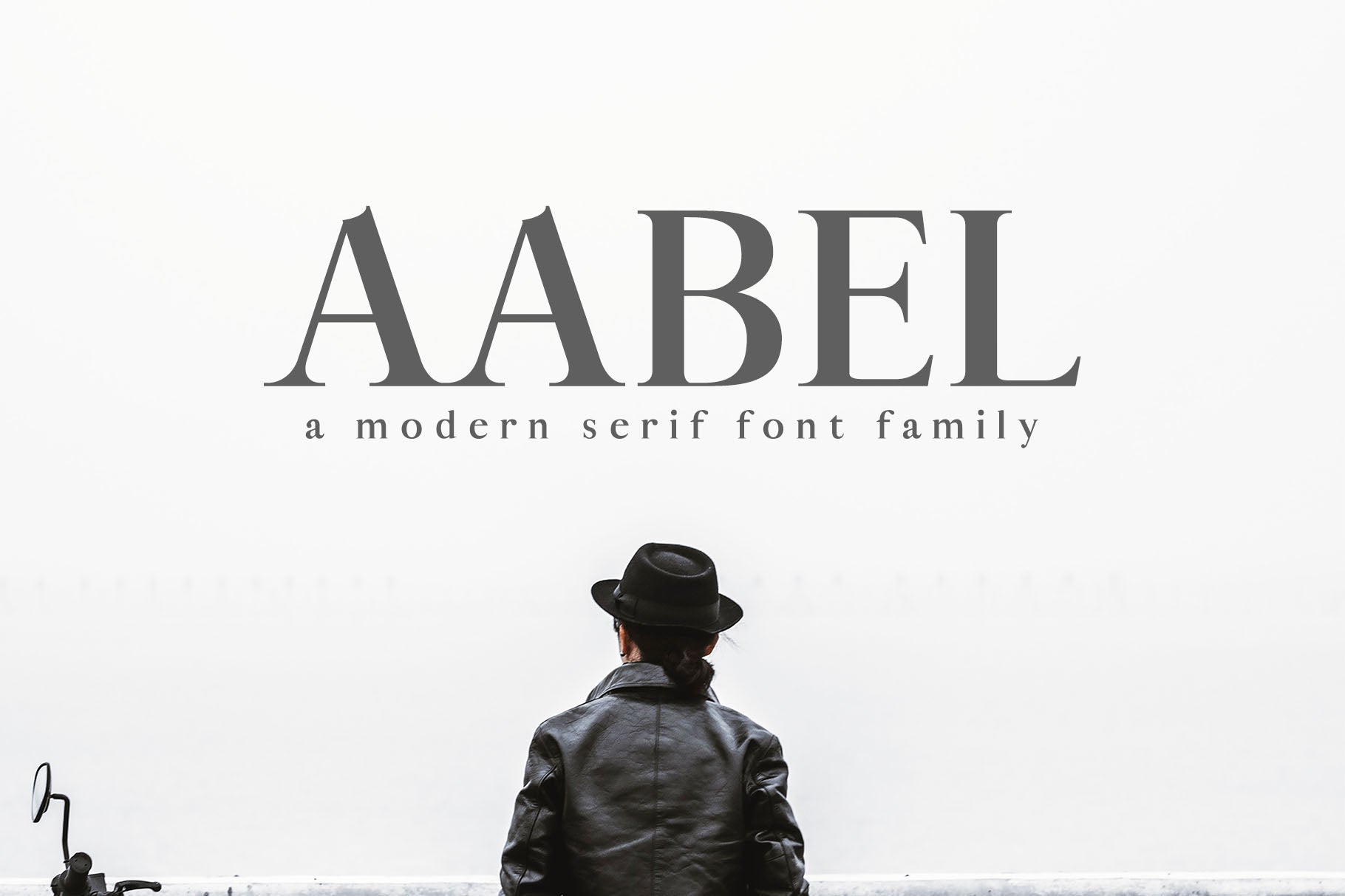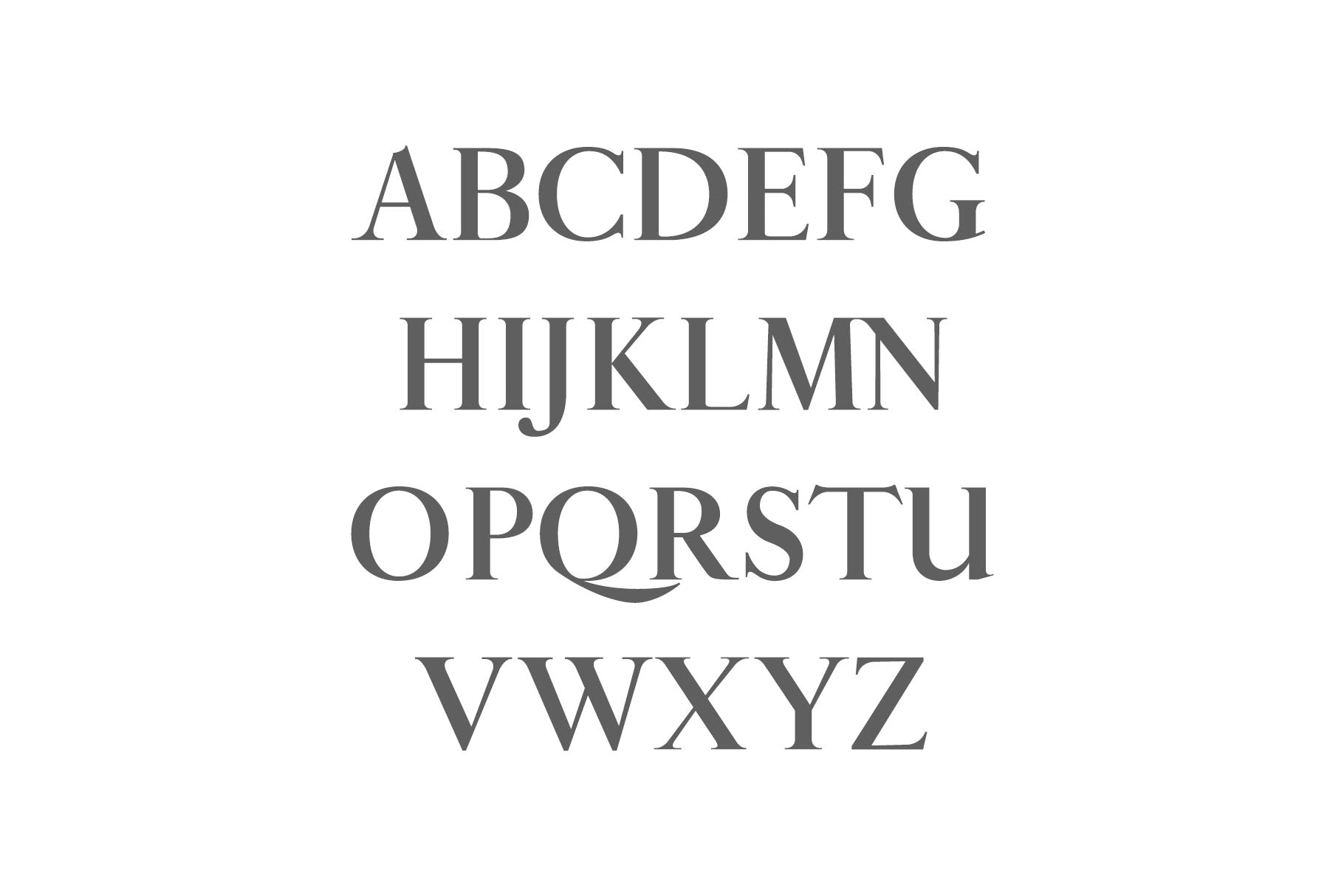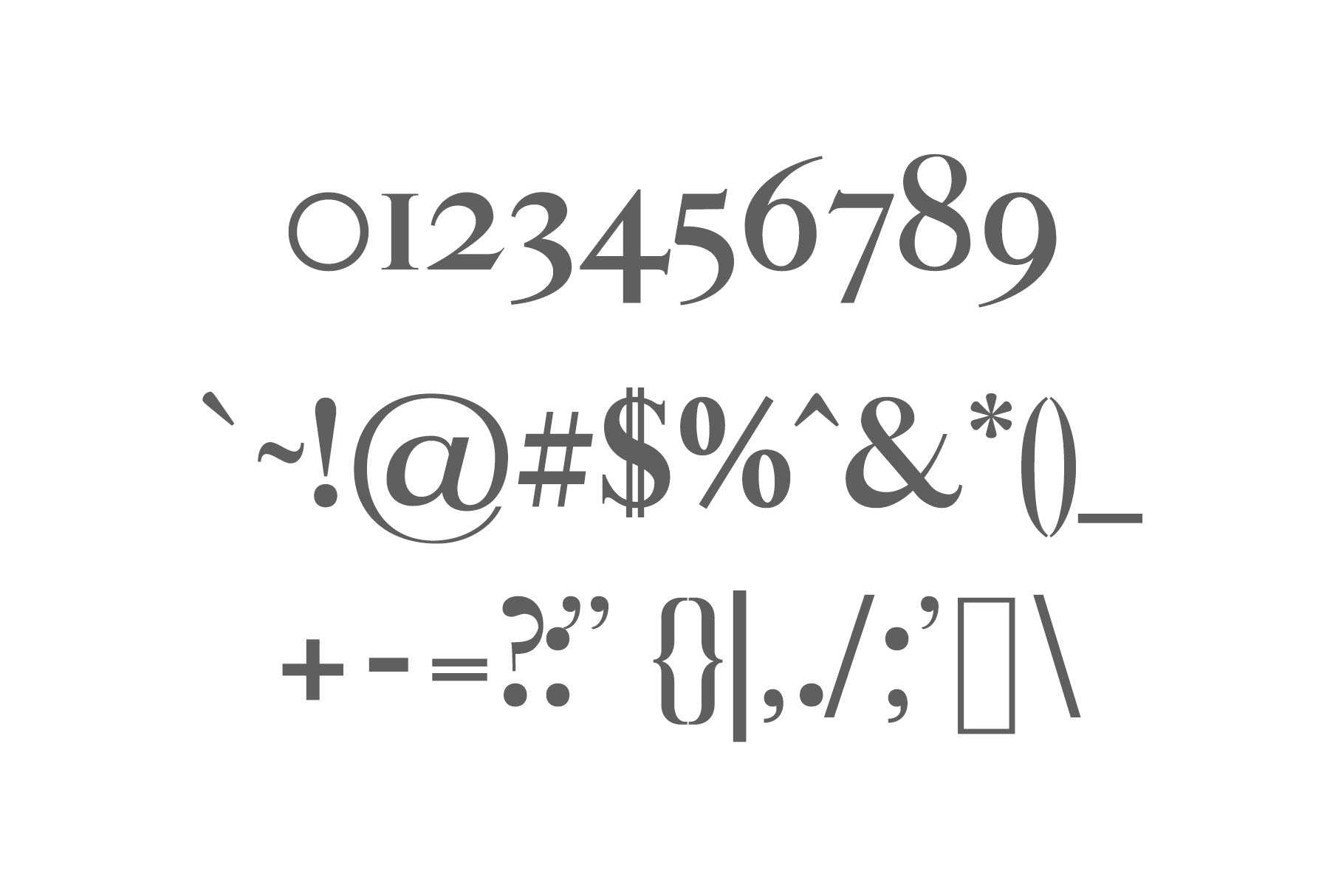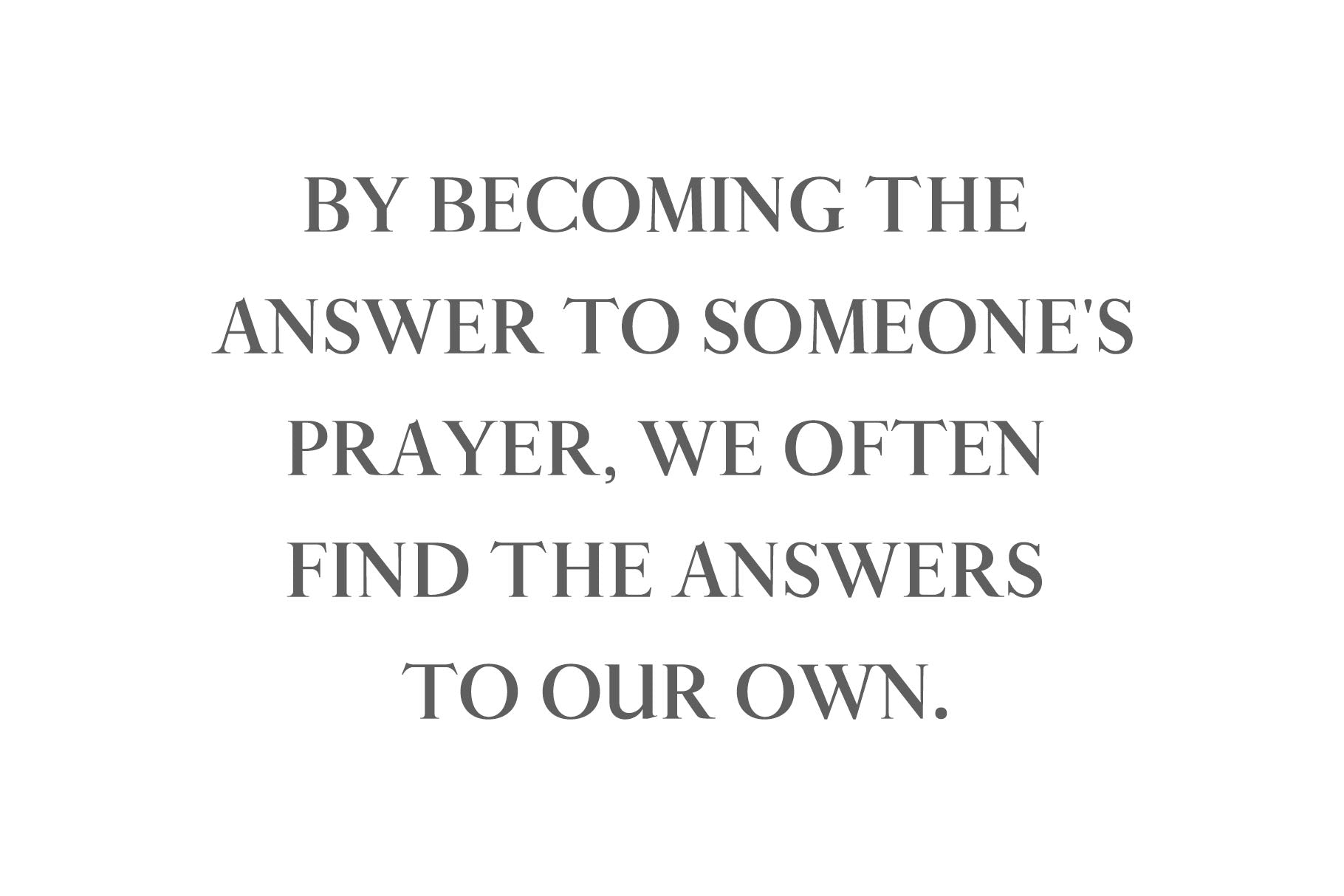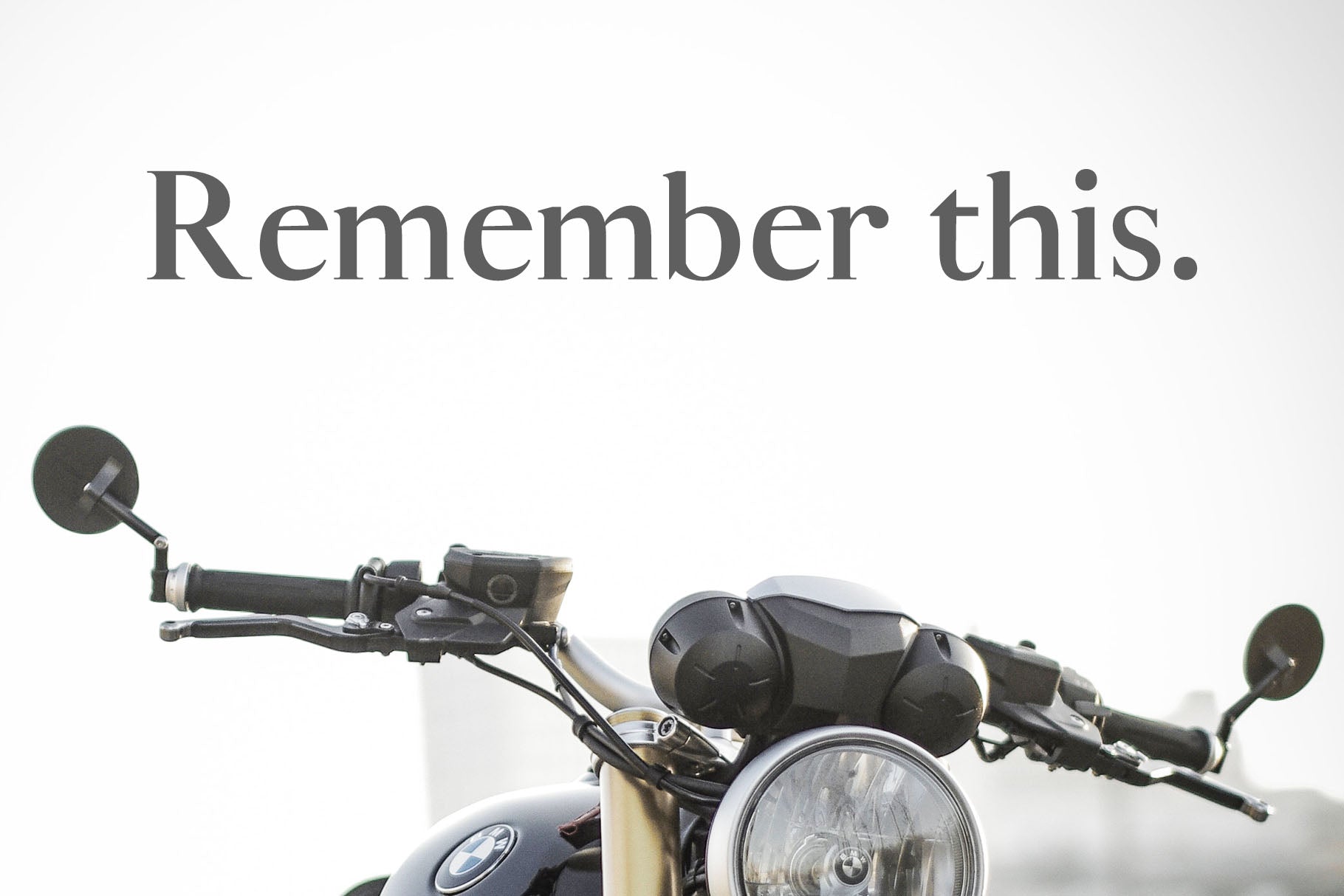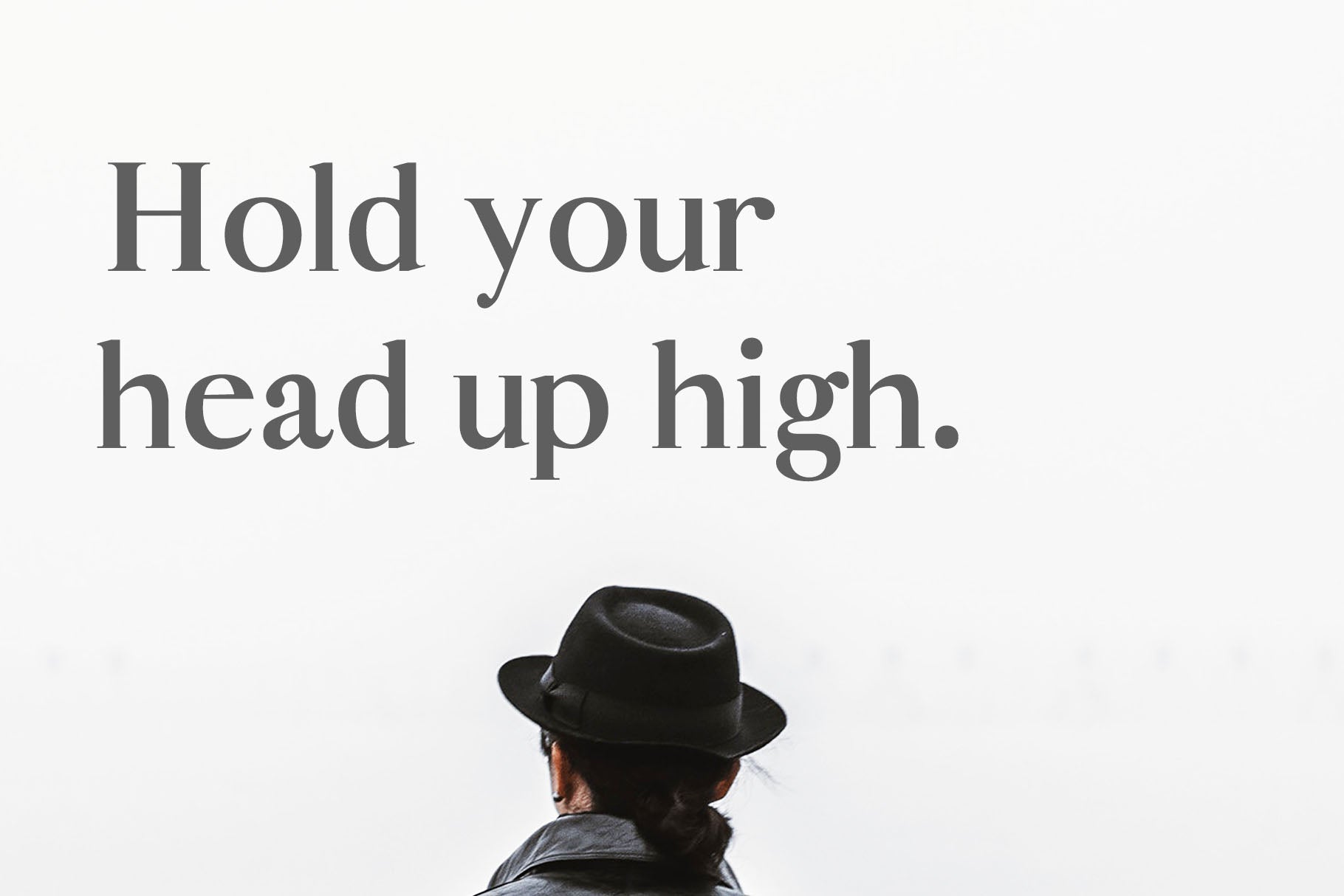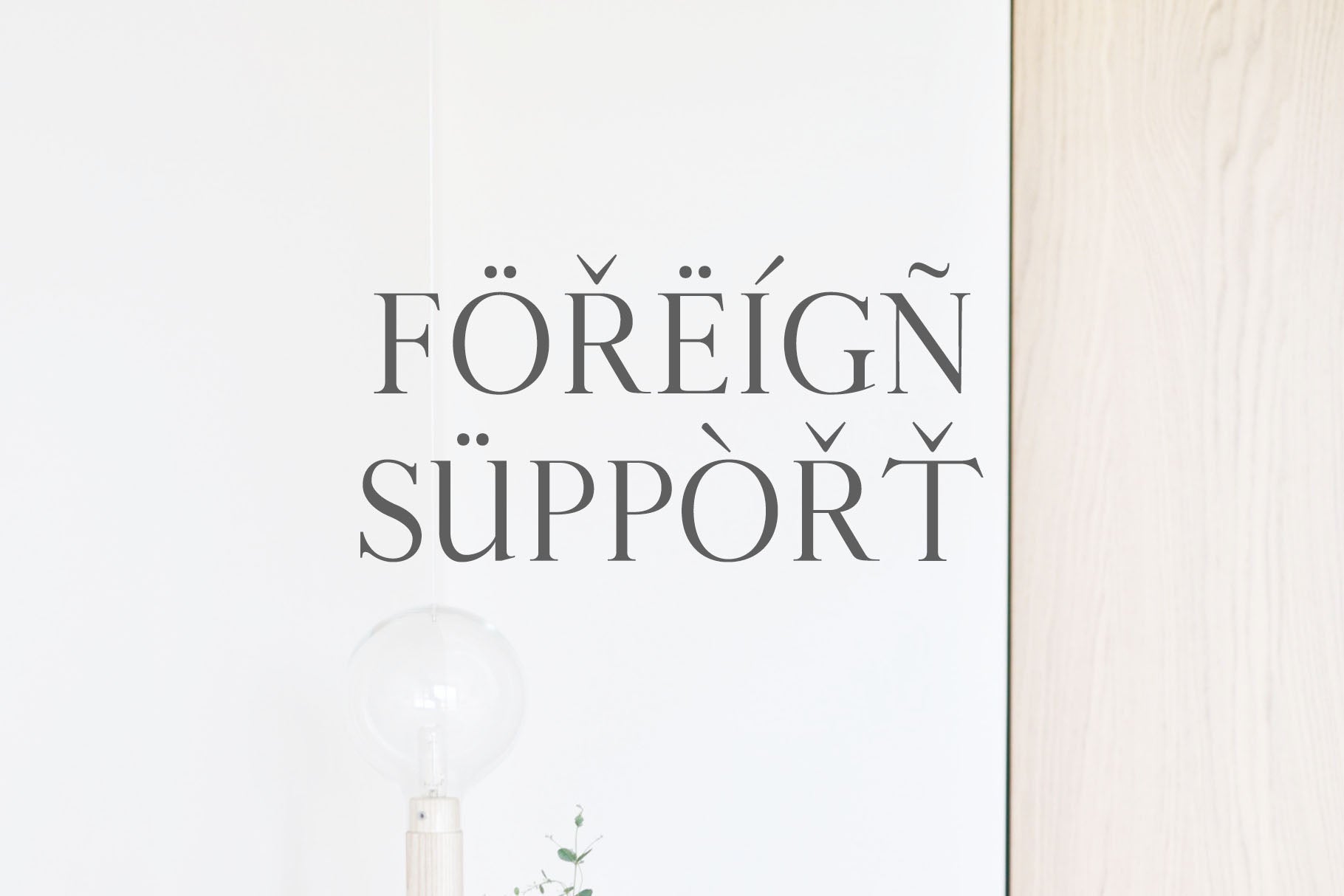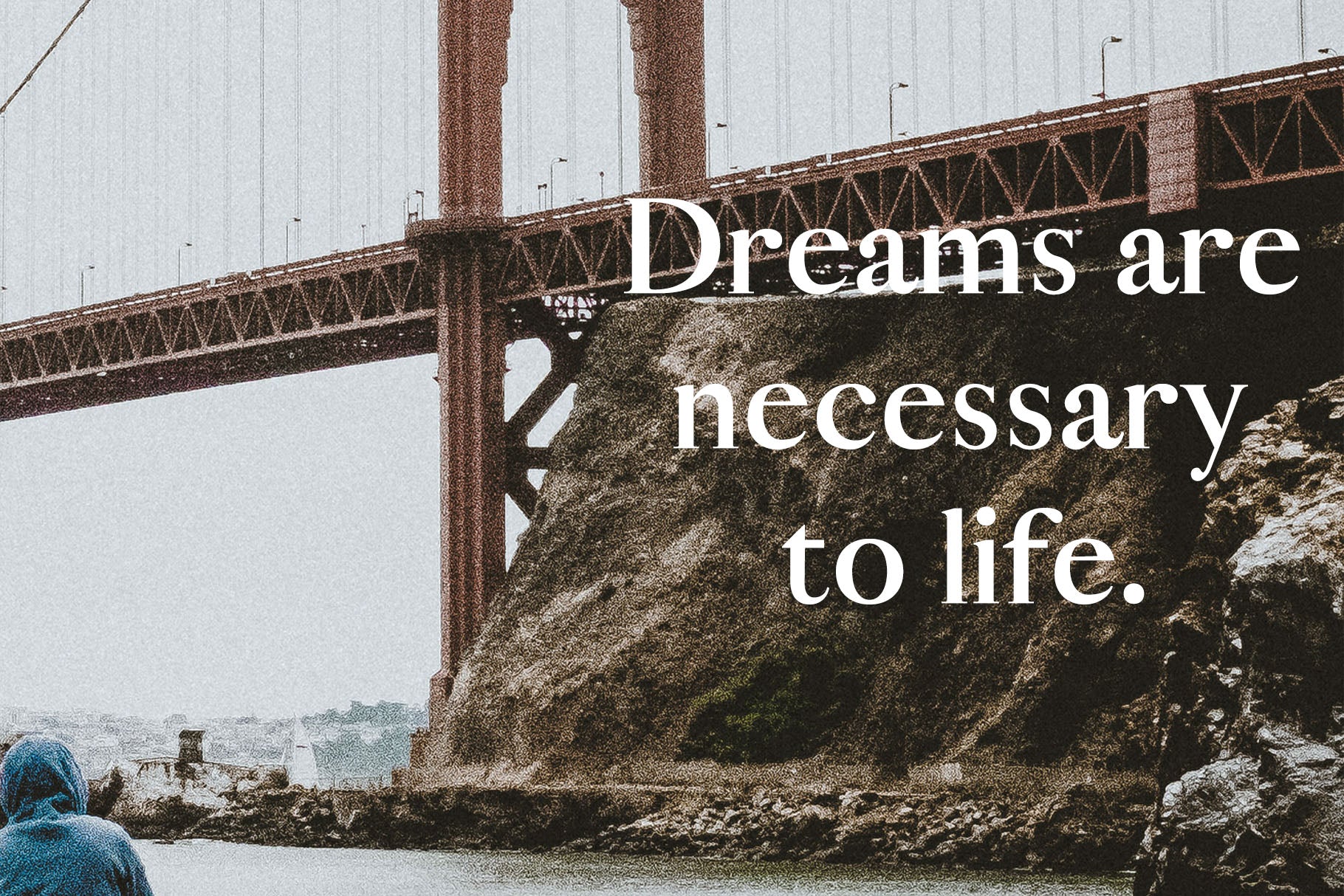
Aable is a modern and minimal classy serif typeface which will add charm into your designs. It comes with 3 weights: Regular, Thin, Light and Bold versions, which contains uppercase and lowercase alphabet, numbers, basic punctuation with multilingual support. This font will pair beautifully with the script, signature or handwriting style. Aable can be used for headlines, posters, branding, packaging, presentations, logo, quotes, titles, magazines headings, web layouts, advertising, invitations, packaging design, books, and nearly any creative design.
Font Weight: Regular, Light, Round and Bold
Aable Font Features:
Uppercase Letters
Lowercase Letters
Numbers & Punctuation
Non English Characters ( Latin Supplement + Latin Extended A)